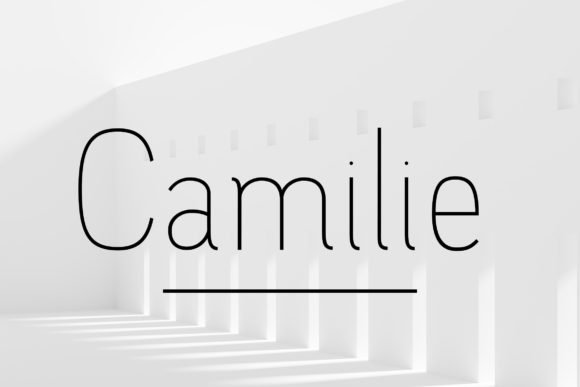
The Perfect Canvas for Your Design Masterpiece
Have you ever stared at a blank page, waiting for inspiration to strike? That’s exactly what happened to me last week, as I sat in front of my computer, trying to come up with the perfect font for a client’s project. And then, it hit me – the Camilie Family Font.
This beautiful sans serif font family has 5 weights, making it the perfect choice for any design project. Its thin letters add a touch of elegance and sophistication, while still maintaining a modern feel. Whether you’re a seasoned designer or just starting out, the Camilie Family Font is a valuable addition to your toolkit.
Camilie Family Font Key Features
- Unique Characteristics: The Camilie Family Font features a distinctive, elegant design with a mix of modern and traditional elements, making it suitable for a wide range of applications, from formal to casual.
- Font Style Variations: The Camilie Family Font includes various font styles, such as Regular, Italic, Bold, and Bold Italic, providing designers with a range of options to suit their design needs.
Camilie Family Font Review
I recently had the chance to work with the Camilie Family Font, and I must say, it’s a lovely addition to any design project. ✨ The font’s elegant and classic style makes it perfect for formal invitations, business reports, or any project where you want to convey a sense of sophistication.
One of the things I appreciate about Camilie Family is its versatility. ✨ It comes in a range of weights and styles, from light to bold, which makes it easy to use in different contexts. I also love the subtle flair of the font’s design, which adds a touch of whimsy and personality to any text.
However, there are a few limitations to keep in mind: ⚠️ The font may not be the best choice for projects that require a lot of bold text, as the bold weight can appear a bit clunky. Additionally, the font may not be fully compatible with older systems or software, which could cause issues in certain situations.
- Perfect for formal and professional projects
- Wide range of weights and styles available
- Subtle flair adds personality to text
Overall, I’m quite impressed with the Camilie Family Font. While it may have a few limitations, its elegant design and versatility make it a great addition to any designer’s toolkit. With a little creativity and experimentation, you can achieve some truly stunning results with this font.